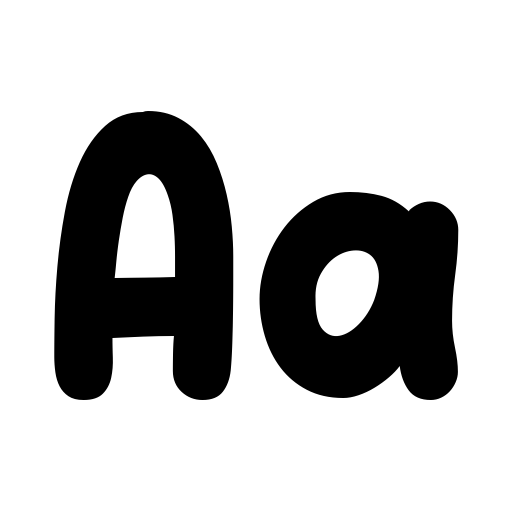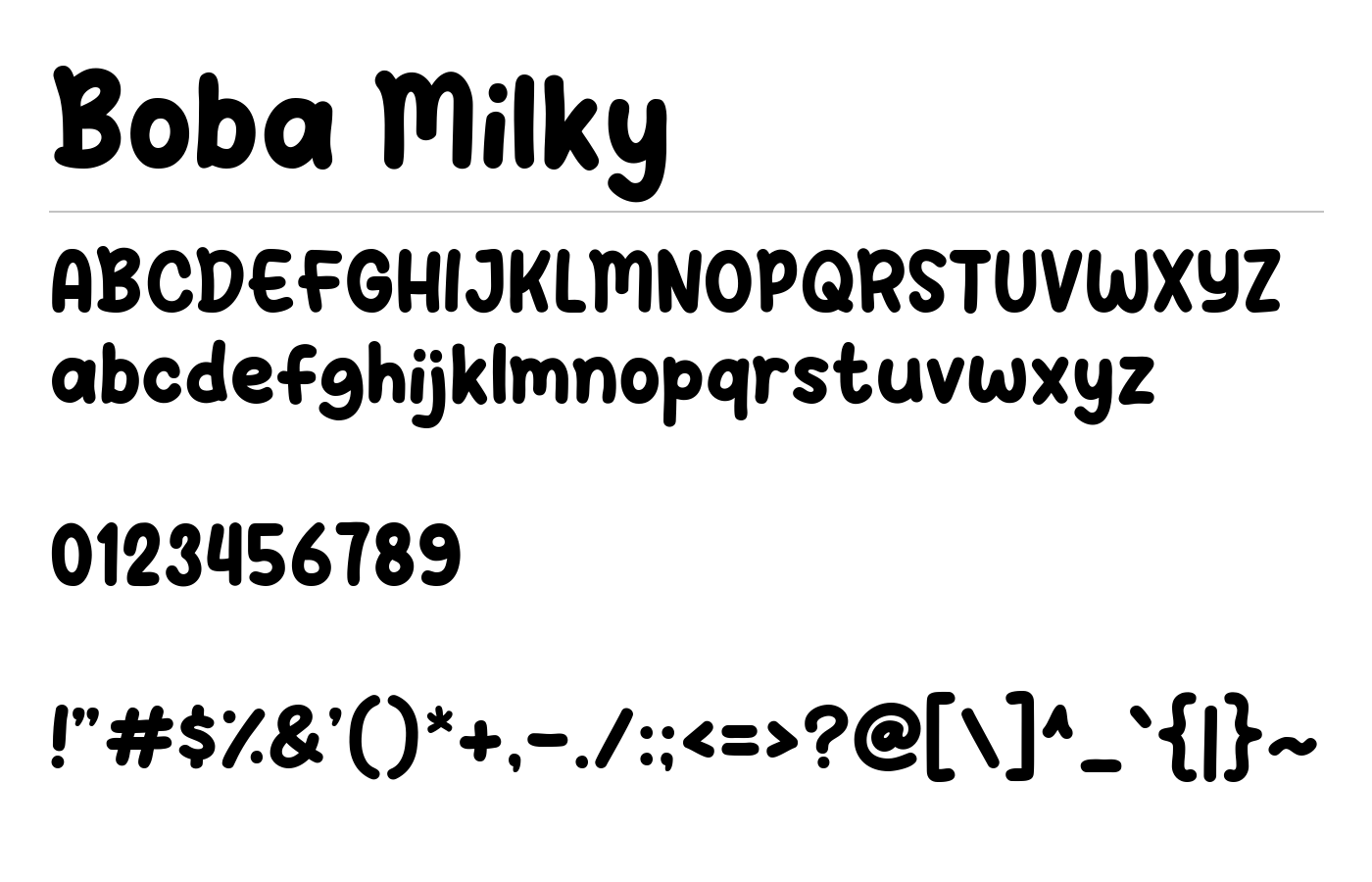
Boba Milky is a playful, rounded sans-serif font with a friendly and casual vibe. Its bold weight and smooth, chunky letterforms make it perfect for designs that need a warm, approachable feel, such as children's products, fun branding, and informal headlines. The font’s bubbly shapes and consistent stroke weight give it an inviting, cheerful personality that works well in lively and creative contexts.
Boba Milky Font
About Boba Milky Font
| Font family | Boba Milky Font |